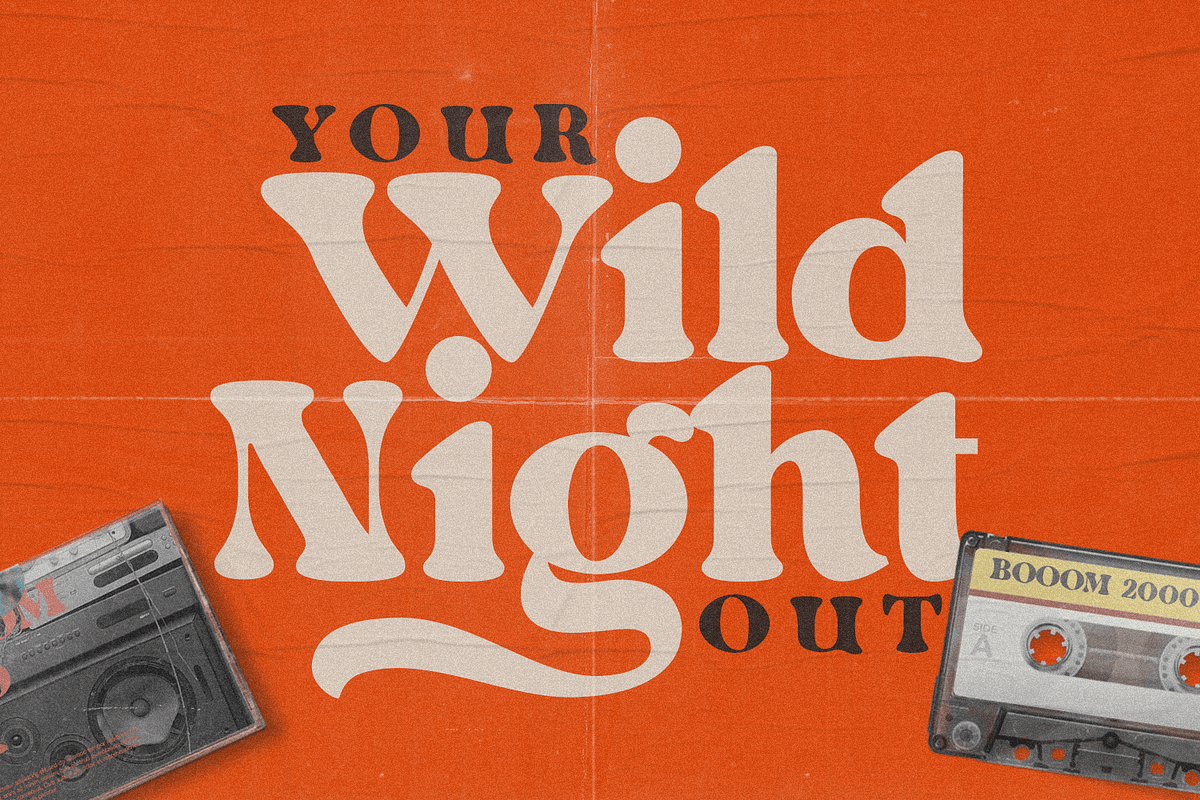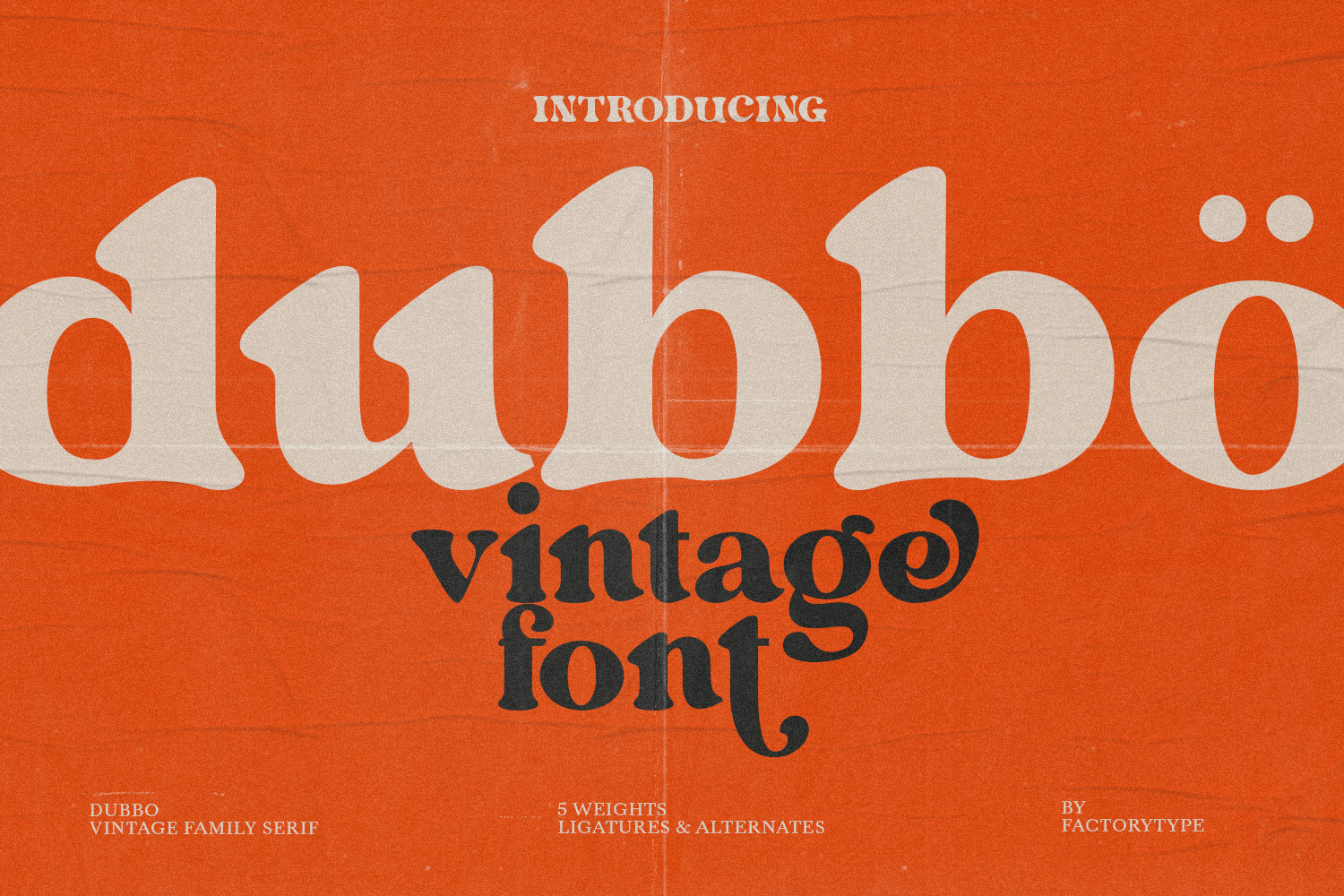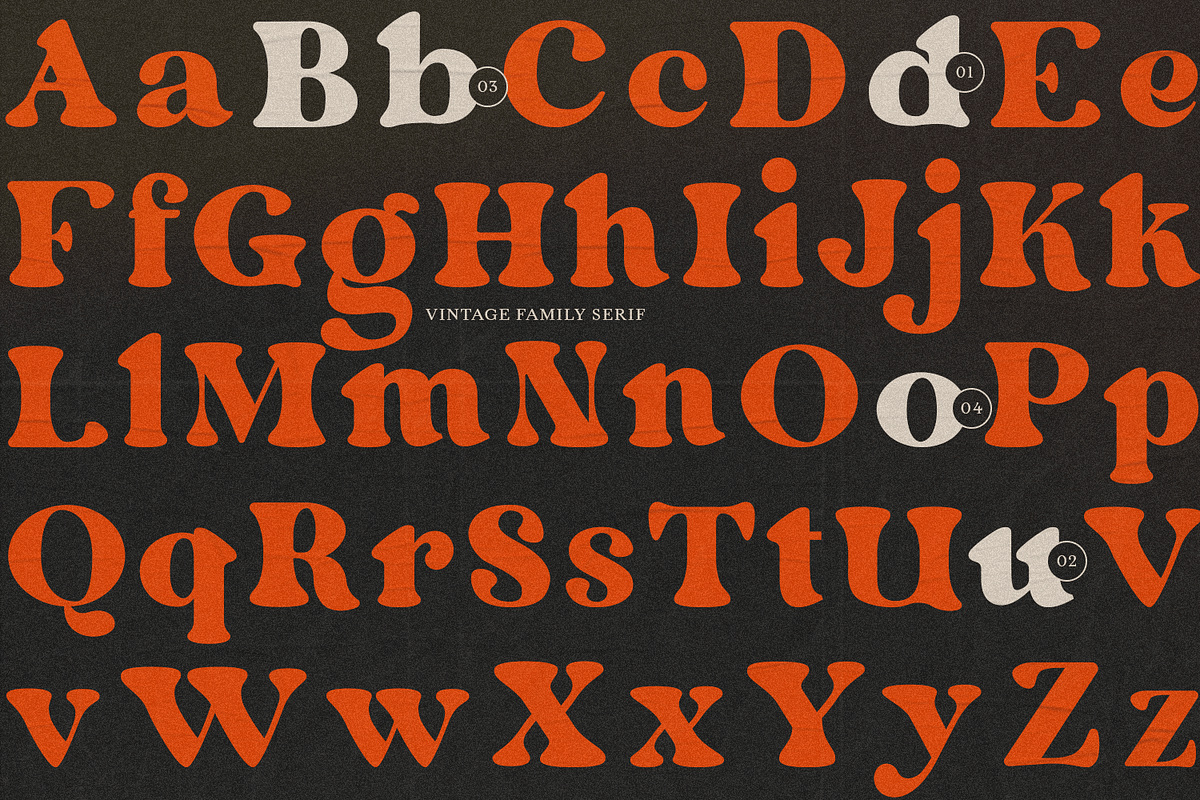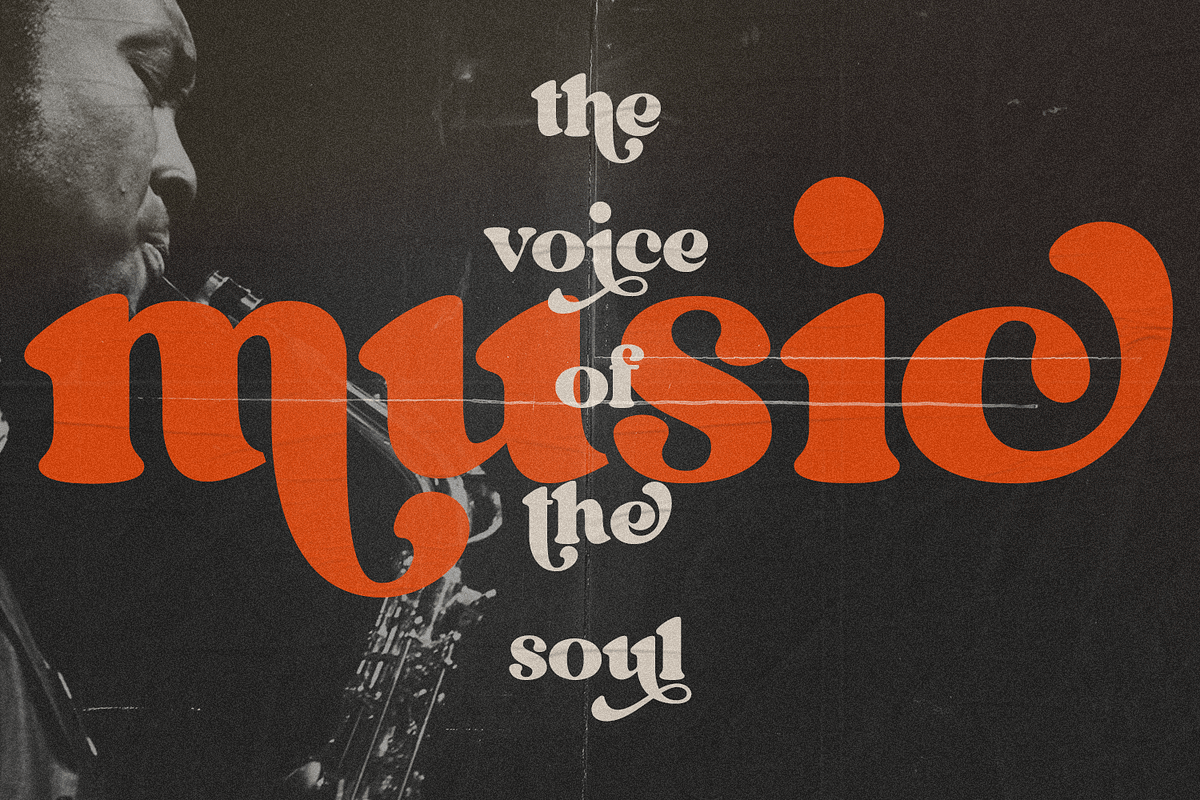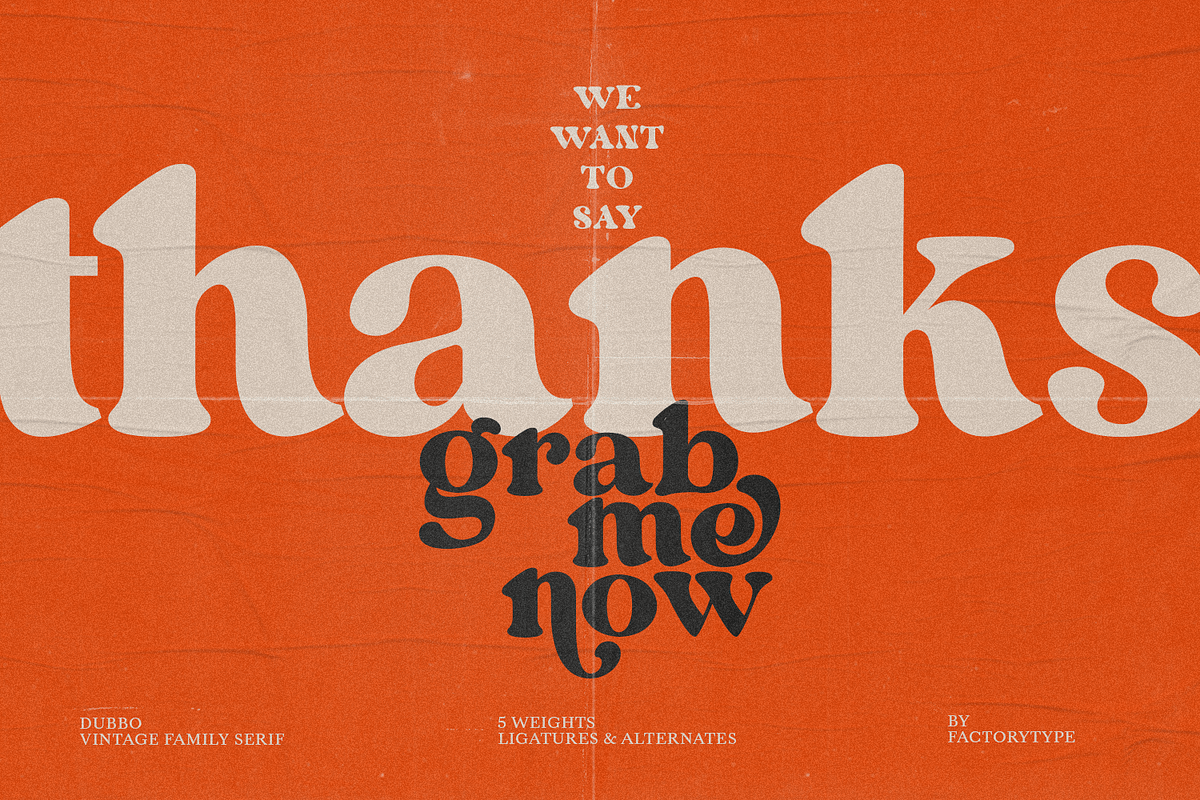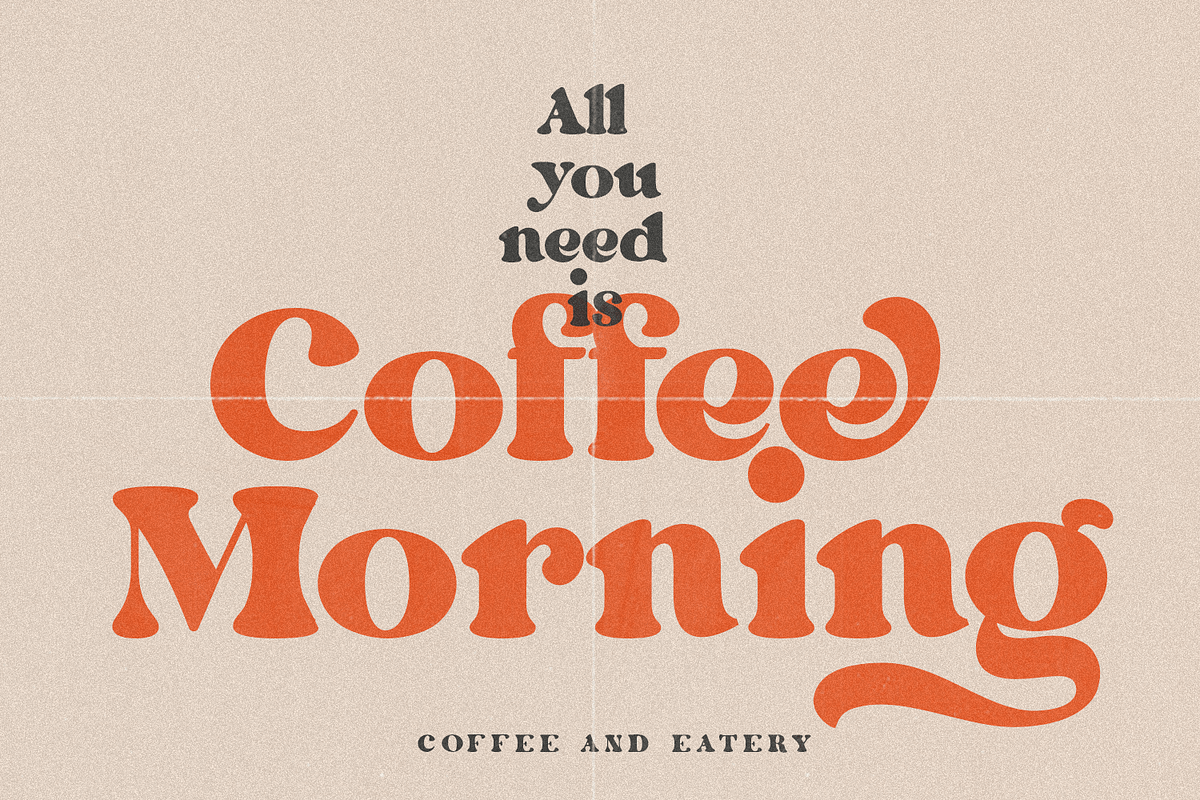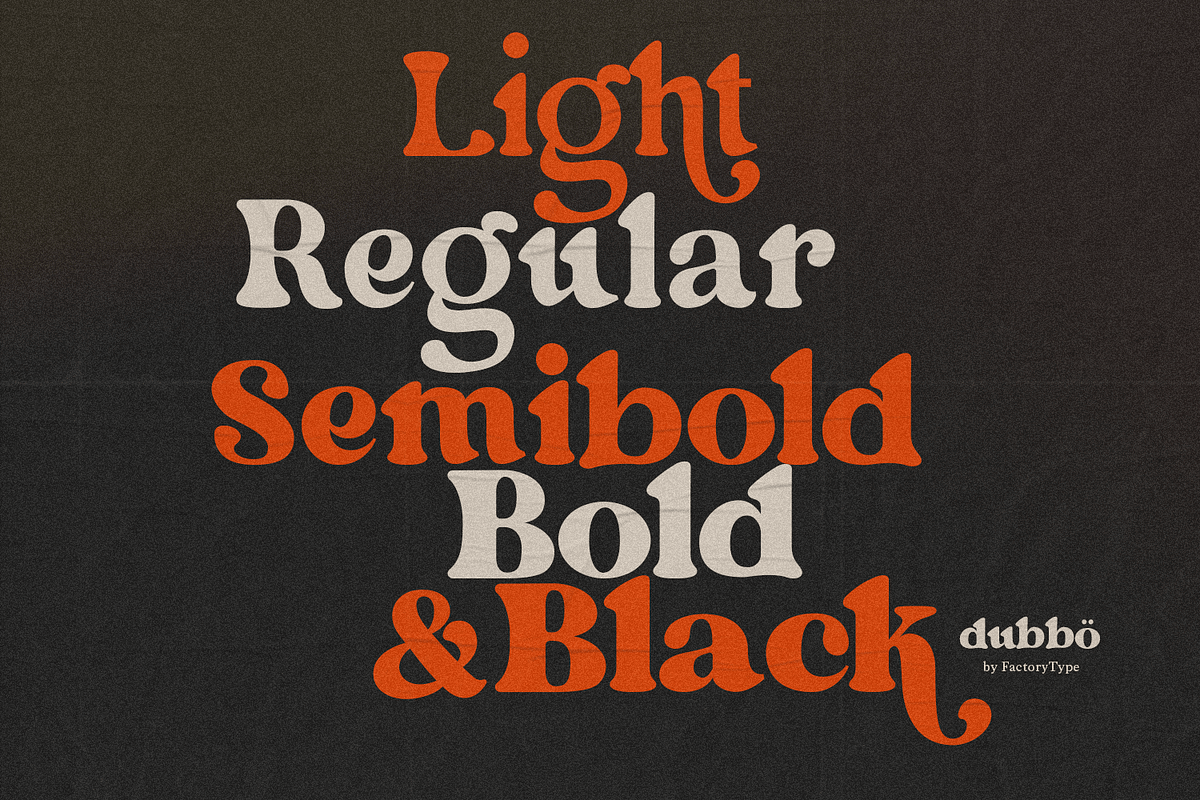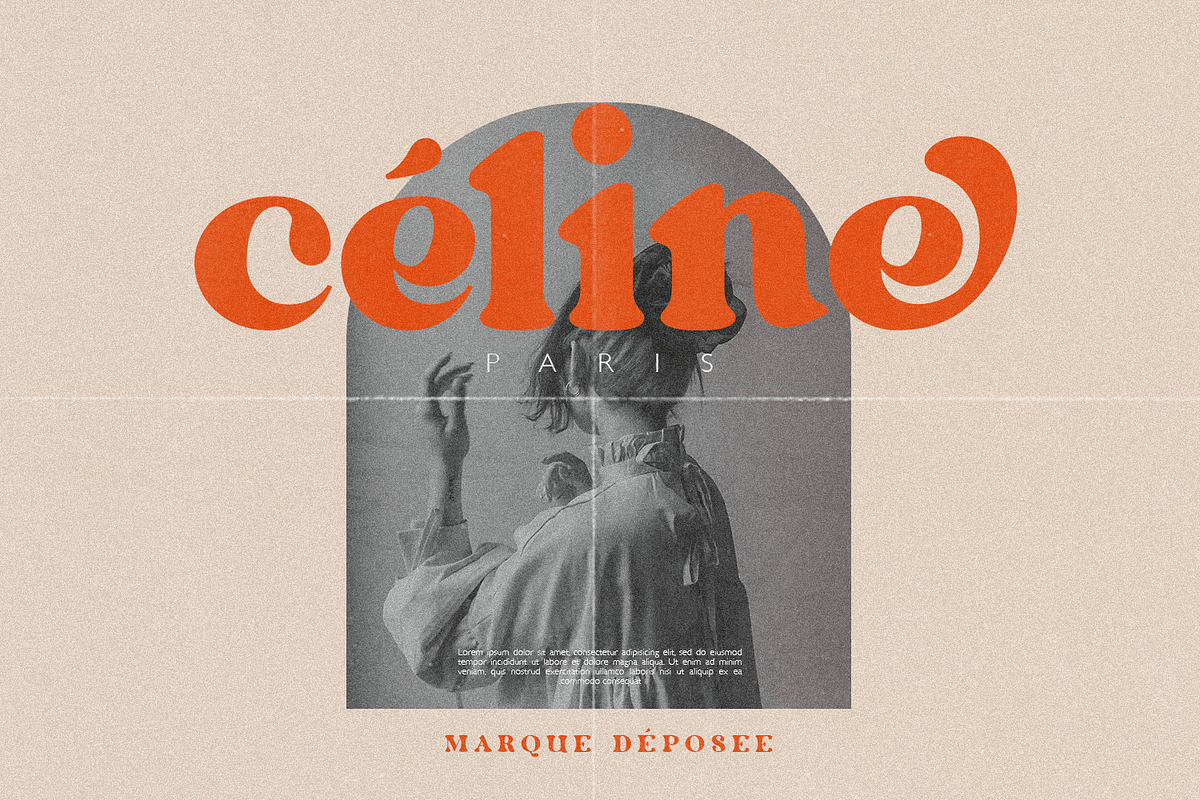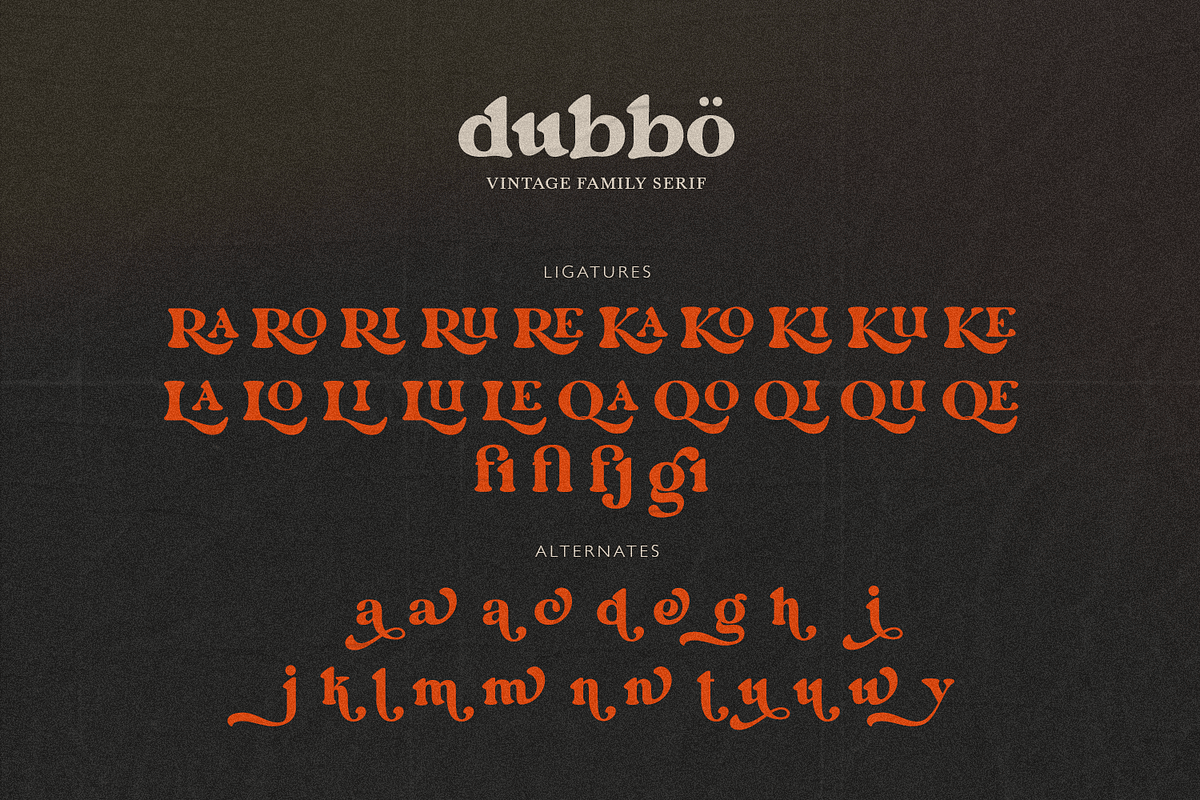
Dubbo - Retro Serif Font
Dubbo is a fashionable font that is both retro and bold. Its thick curves give it a 70s groovy vibe, while the serifs bring it back to traditional. Dubbo fits right in with those retro moodboards and vintage logos. It includes a distinct lower and uppercase, as well as numbers, punctuation, and multilingual letters. The Ligature and Alternate fonts are sure to come in handy for whatever your imagination can conjure up!
- 5 Weights (Light, Regular, Semibold, Bold, Black)
- Stylistic Alternates & Ligatures
- Multilingual Support for ä ö ü Ä Ö Ü ...